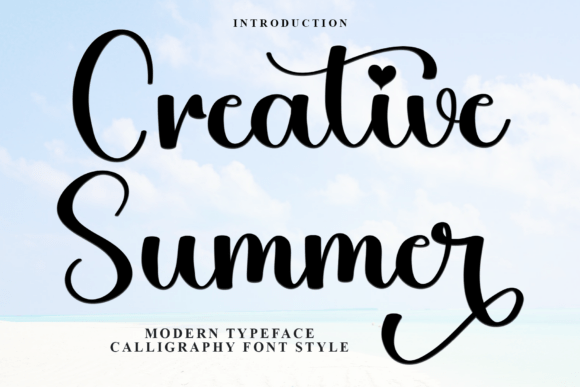
Introducing Creative Summer: The Perfect Font for Warmth and Elegance
As the sun shines brightly during the summer months, designers and crafters are on the lookout for fonts that capture the essence of warmth, joy, and carefree days. If you’re searching for a typeface that embodies the spirit of summer, look no further than Creative Summer, a modern calligraphy-style font that exudes elegance and delight.
A Font that Radiates Elegance and Joy
Creative Summer is a beautifully crafted font that features smooth curves, playful swashes, and a charming heart detail. Its expressive flow and handcrafted feel make it perfect for a variety of design projects, from wedding invitations and summer event branding to greeting cards and stylish social media content.
Perfect for Wedding Invitations and Summer Events
With Creative Summer, you can add a touch of romance and whimsy to your wedding invitations, save-the-date cards, and other summer event materials. The font’s elegant strokes and charming details will make your designs stand out and leave a lasting impression on your guests.
Elevate Your Social Media Content
In the world of social media, a font can make all the difference in capturing the attention of your audience. Creative Summer is the perfect choice for designers and crafters looking to add a fresh, romantic vibe to their social media content. Whether you’re creating graphics for Instagram, Facebook, or Twitter, this font is sure to shine.
Key Features of Creative Summer
- Modern Calligraphy Style: Creative Summer boasts a modern calligraphy style that’s perfect for designers looking for a elegant and sophisticated font.
- Smooth Curves and Playful Swashes: The font features smooth curves and playful swashes that add a touch of whimsy to your designs.
- Charming Heart Detail: The charming heart detail in Creative Summer adds a romantic touch to your designs, making it perfect for wedding invitations and other special occasions.
Why Choose Creative Summer?
So, why choose Creative Summer over other fonts? Here are just a few reasons:
- Unique and Eye-Catching: Creative Summer is a unique and eye-catching font that’s sure to make your designs stand out.
- Versatile: The font is versatile and can be used for a variety of design projects, from wedding invitations to social media content.
Tips for Using Creative Summer
Here are a few tips for using Creative Summer in your designs:
- Pair it with a Sans-Serif Font: Pair Creative Summer with a sans-serif font for a beautiful contrast that adds visual interest to your designs.
- Use it for Headings and Titles: Use Creative Summer for headings and titles to add a touch of elegance and sophistication to your designs.
- Experiment with Swashes and Glyphs: Don’t be afraid to experiment with the swashes and glyphs in Creative Summer to add a unique touch to your designs.
In conclusion, Creative Summer is a beautiful and elegant font that’s perfect for designers and crafters looking to capture the essence of warmth and joy in their designs. With its smooth curves, playful swashes, and charming heart detail, this font is sure to shine in any design project. So why wait? Download Creative Summer today and start creating stunning designs that capture the beauty of sunny, carefree days.